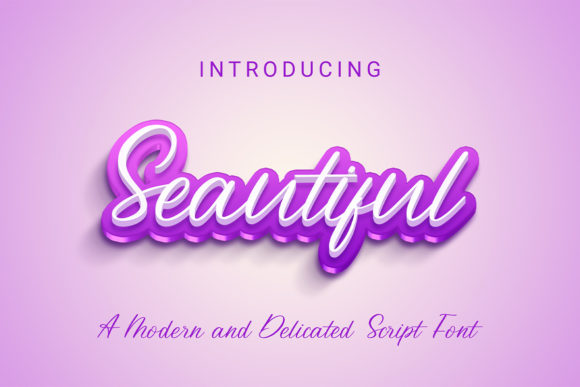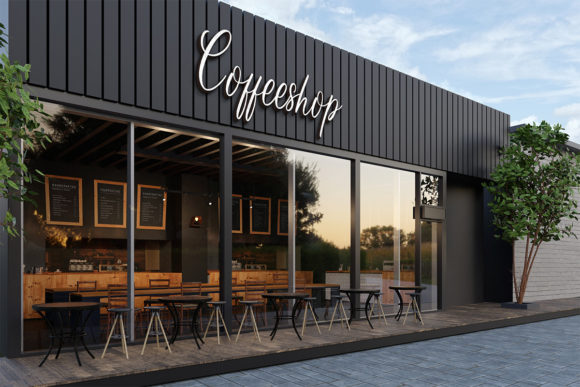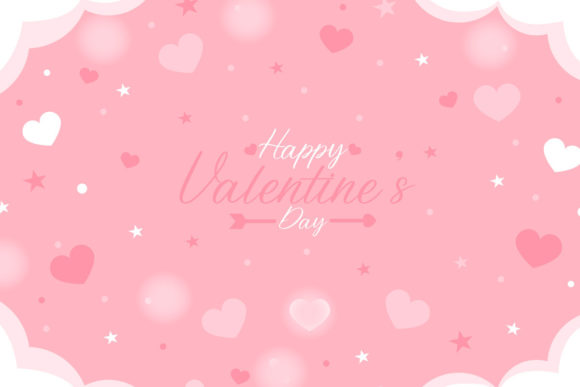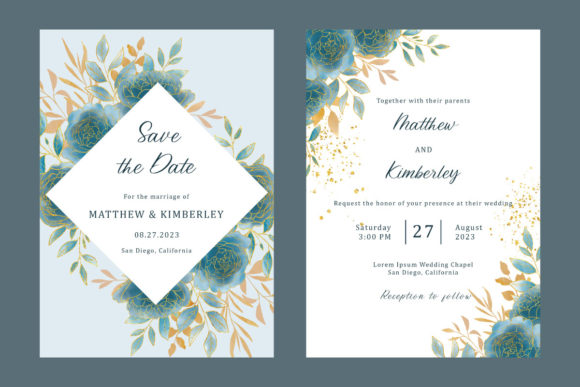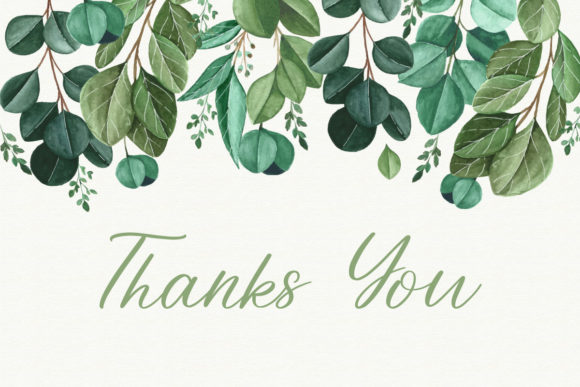
Seautiful Font
About Seautiful Font
Seautiful is a modern and delicate script font. It has a classy, elegant and flowing look that can be used for logos, branding, invitations, stationery, wedding designs, social media posts, and much more.